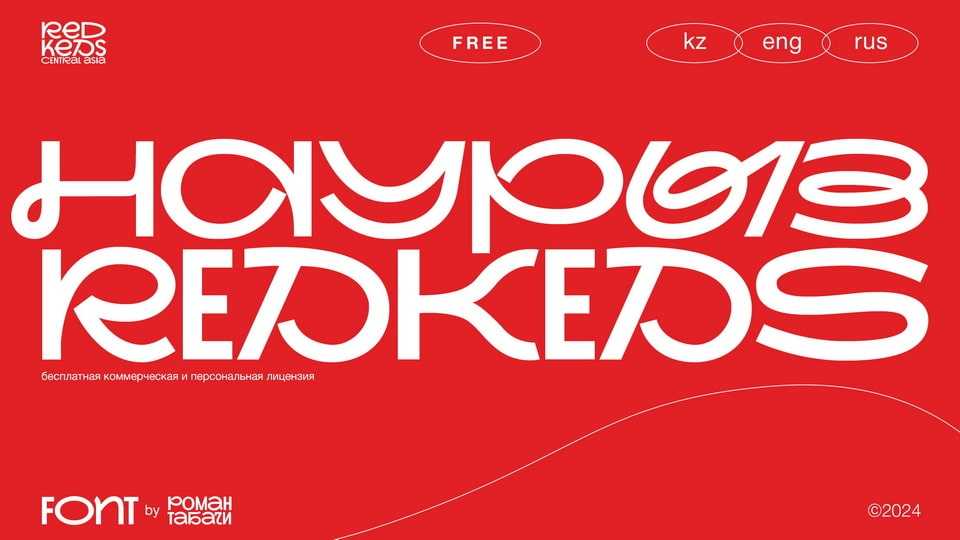
Nauryz RedKeds Font › Fontesk – Download Grátis
Download Nauryz RedKeds font, a contemporary display typeface that combines soft ornamental details with a strong-willed presence. Nauryz RedKeds font balances smooth curves with robust lines, creating a typographic experience that is both elegant and commanding.
Designer: Roman Tabachi